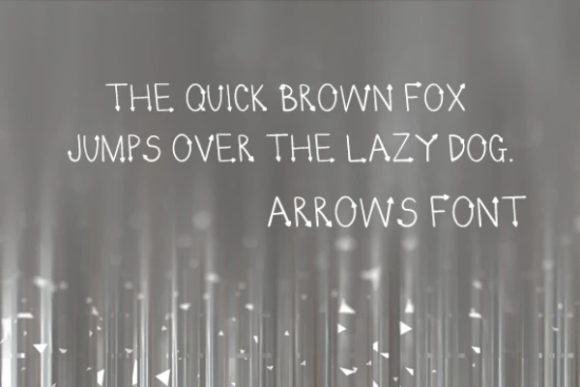
The Ultimate Guide to Arrows Font: Elevate Your Design with This Stunning Sans Serif
I’ll never forget the time I was working on a project, pouring my heart and soul into it, but something just wasn’t clicking. The design looked off, and I couldn’t quite put my finger on it. And then it hit me – the font! I was using a font that just didn’t have the right vibe. That’s when I discovered Arrows Font, and let me tell you, it was a game-changer. This lovely sans serif font has a perfectly balanced mix of smooth and sharp elements that complement any design need perfectly.
Arrows Font Review: The Good and the Great
- ✨ Perfectly balanced design: The mix of smooth and sharp elements creates a beautiful visual harmony that elevates any design.
- ✅ Versatile: Arrows Font is suitable for a wide range of design projects, from digital to print, and from elegant to playful.
- 💡 Instant recognition: The unique design of Arrows Font makes it instantly recognizable, adding a touch of personality to your design.
The Not-So-Perfect: A Few Quirks
No font is perfect, and Arrows Font is no exception. Here are a few things to keep in mind:
- 🤔 Limited language support: Arrows Font may not support all languages, so be sure to check the character set before using it for a project.
- ⚠️ Not ideal for body text: While Arrows Font is stunning, it’s not the best choice for body text due to its design. It’s better suited for headings and titles.
The Story Behind Arrows Font
Arrows Font was designed with the goal of creating a font that would be both beautiful and versatile. The designer wanted to create a font that would add a touch of personality to any design, while still being easy to read and understand.
| Font Name | Arrows Font |
| Author | carina2 |
| What is Arrows Font? | Arrows Font is a lovely sans serif font with a perfectly balanced mix of smooth and sharp elements. |
| Is Arrows Font suitable for body text? | No, Arrows Font is better suited for headings and titles due to its design. |